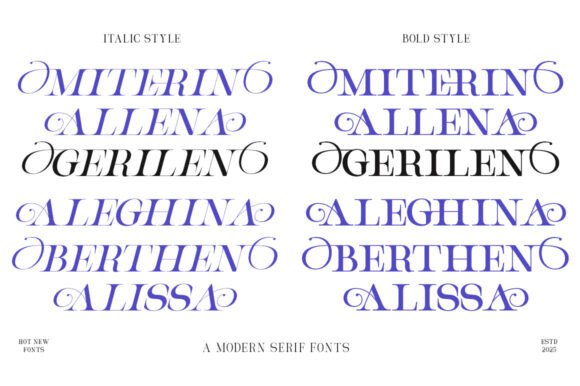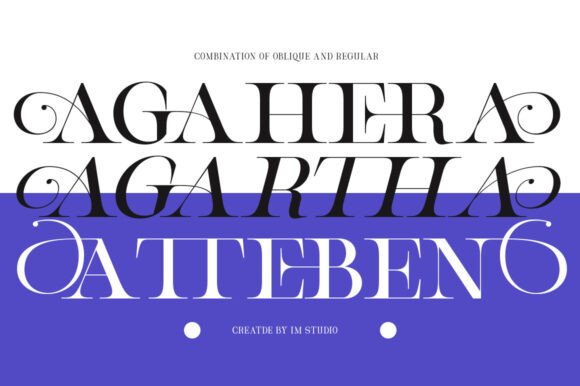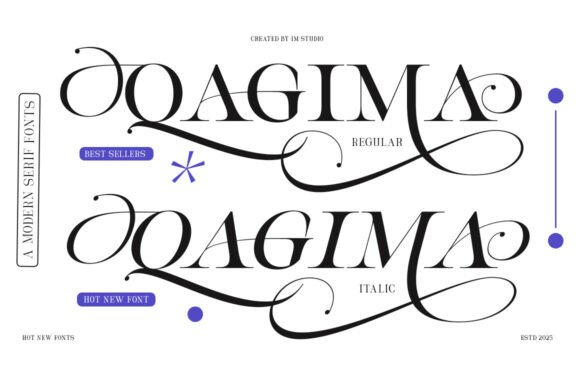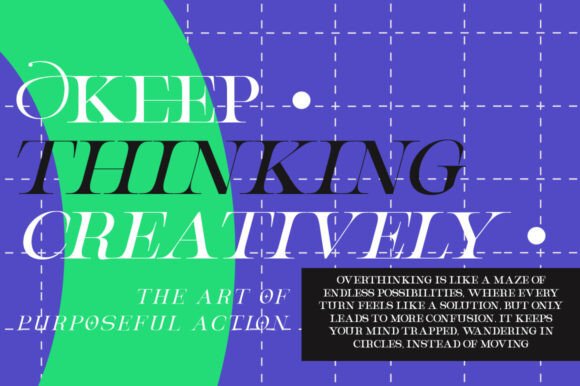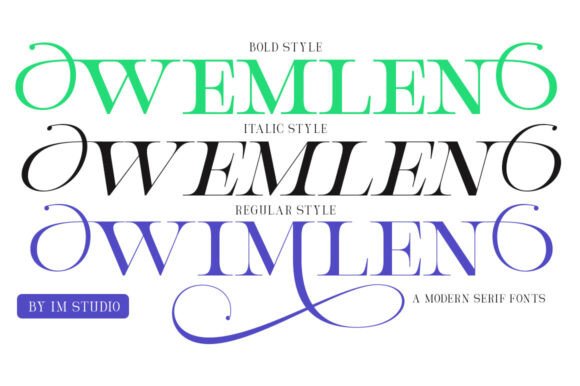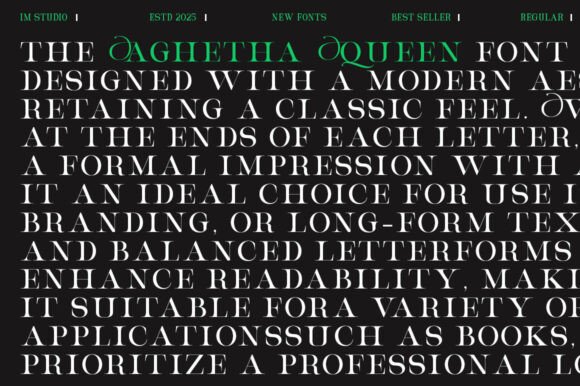
Discover the Elegance of Aghetha Queen Font: A Timeless Typeface for Creative Projects
In the world of typography, few fonts manage to strike a balance between classic elegance and modern charm. Aghetha Queen Font is one such exceptional typeface that effortlessly combines the best of both worlds. Designed with gentle curves and graceful letterforms, Aghetha Queen creates a harmonious and captivating visual flow, making it perfect for a wide range of creative projects.
The Design Philosophy of Aghetha Queen
Aghetha Queen is more than just a font; it’s an elegant and charming typeface that brings a touch of sophistication to any design. Its design philosophy revolves around creating a perfect balance of classic beauty and modern twist. The font features:
- Gentle curves and refined lines
- Elegant letterforms with a touch of luxury
- Harmonious and captivating visual flow
This thoughtful design makes Aghetha Queen an ideal choice for projects that demand a high level of elegance and refinement.
Enhancing Creativity with Ligatures and Alternate Characters
To give Aghetha Queen an extra edge, a variety of carefully designed ligatures and alternate characters have been incorporated into the font. These features not only add an artistic touch but also provide designers with the flexibility to experiment with different styles and creative expressions.
The ligatures and alternate characters in Aghetha Queen allow designers to:
- Add a personal touch to their designs
- Experiment with different typographic styles
- Create unique and captivating visual effects
Whether you’re working on a branding project, wedding invitation, or editorial layout, Aghetha Queen’s ligatures and alternate characters provide the perfect opportunity to add a touch of creativity and sophistication.
Perfect for a Wide Range of Creative Projects
Aghetha Queen’s timeless charm and perfect balance of modern and vintage details make it an ideal choice for a wide range of creative projects. Some of the ideal uses for Aghetha Queen include:
- Branding: Create a lasting impression with Aghetha Queen’s elegant and luxurious typography.
- Wedding Invitations: Add a touch of romance and sophistication to your wedding invitations with Aghetha Queen.
- Editorial Layouts: Bring a level of elegance and refinement to your editorial layouts with Aghetha Queen’s captivating visual flow.
Aghetha Queen’s versatility and style make it the perfect choice for designers and crafters looking for a typeface that can add character and style to their projects.
Why Choose Aghetha Queen Font?
With so many fonts available, why choose Aghetha Queen? Here are just a few reasons why Aghetha Queen stands out:
- Timeless Charm: Aghetha Queen’s classic beauty ensures that your designs will never go out of style.
- Perfect Balance: The font’s balance of modern and vintage details creates a unique and captivating visual effect.
- Elegance and Sophistication: Aghetha Queen adds a touch of luxury and refinement to any design.
Whether you’re a designer, crafter, or simply someone who appreciates beautiful typography, Aghetha Queen Font is an exceptional choice for any creative project.
| Font Name | Aghetha Queen Font |
| Author | IM Studio |
In conclusion, Aghetha Queen Font is an elegant and charming typeface that combines classic beauty with a modern twist. Its thoughtful design, ligatures, and alternate characters make it the perfect choice for a wide range of creative projects. With its timeless charm and perfect balance of modern and vintage details, Aghetha Queen is an ideal choice for designers and crafters looking for a typeface with character and style.